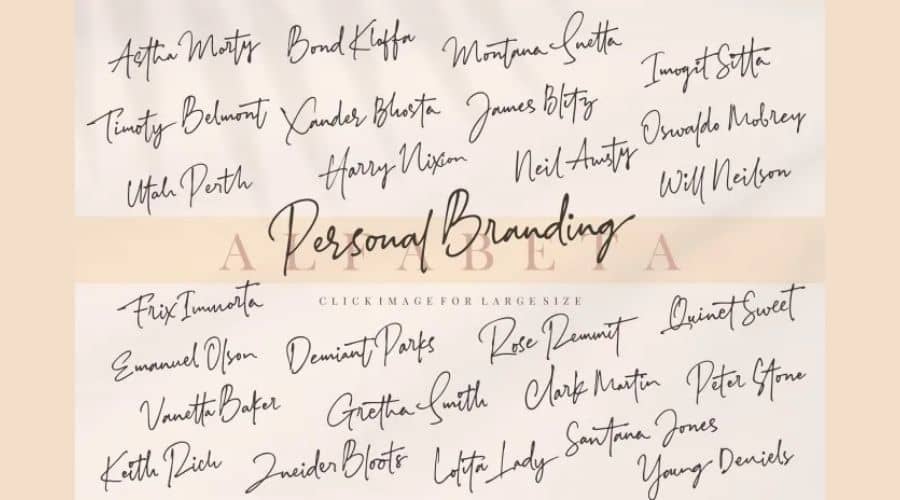
Stylish Classy Script Font
The Stylish Classy Script Font is now available. This is a font that has a distinct handwritten feel to it. This Font has been painstakingly constructed from the ground up to resemble a genuine handwritten script as closely as possible, allowing it to achieve the right combination on each glyph. This is a new Scand handwritten font with a natural handwritten curve and attractiveness. Stylish Classy is a trendy handwritten script font that is both stylish and elegant. Azetmedia created and released this beautiful Script and handwritten font. Before installing the fonts, you must first extract them from the ZIP or RAR file, then: Windows 10/8/7 Install the Font by right-clicking on it.
Stylish Classy Font provides beautiful typographic harmony for a wide range of design projects, including logos and branding, wedding designs, social media posts, advertisements, product designs, quotes, watermarks, photography, poster design, magazine, stationery, and simply as a stylish text overlay to any background image. This Script and handwritten font is perfect for when you need a charming and informal lettering style. As a result, it functions effectively in a variety of novel settings.
Stylish Classy Script Font View
| Name | Stylish Classy Script Font |
| Designer | Azetmedia |